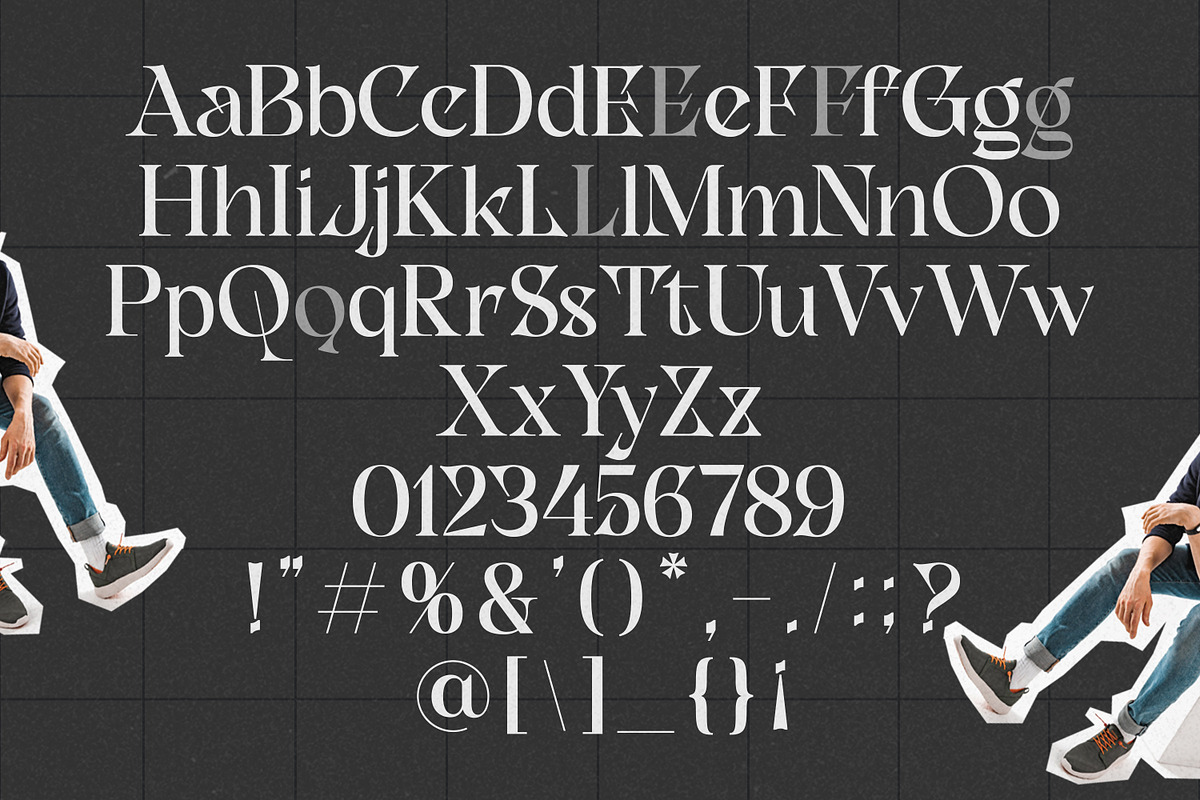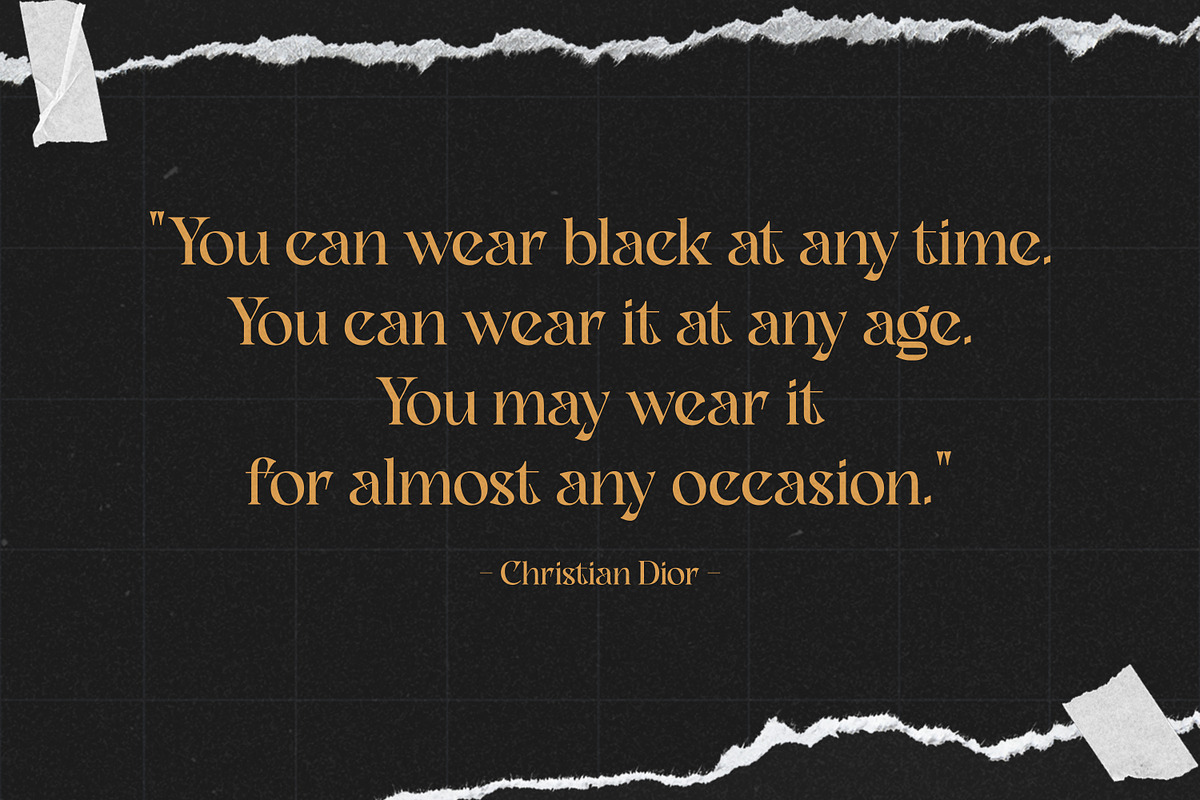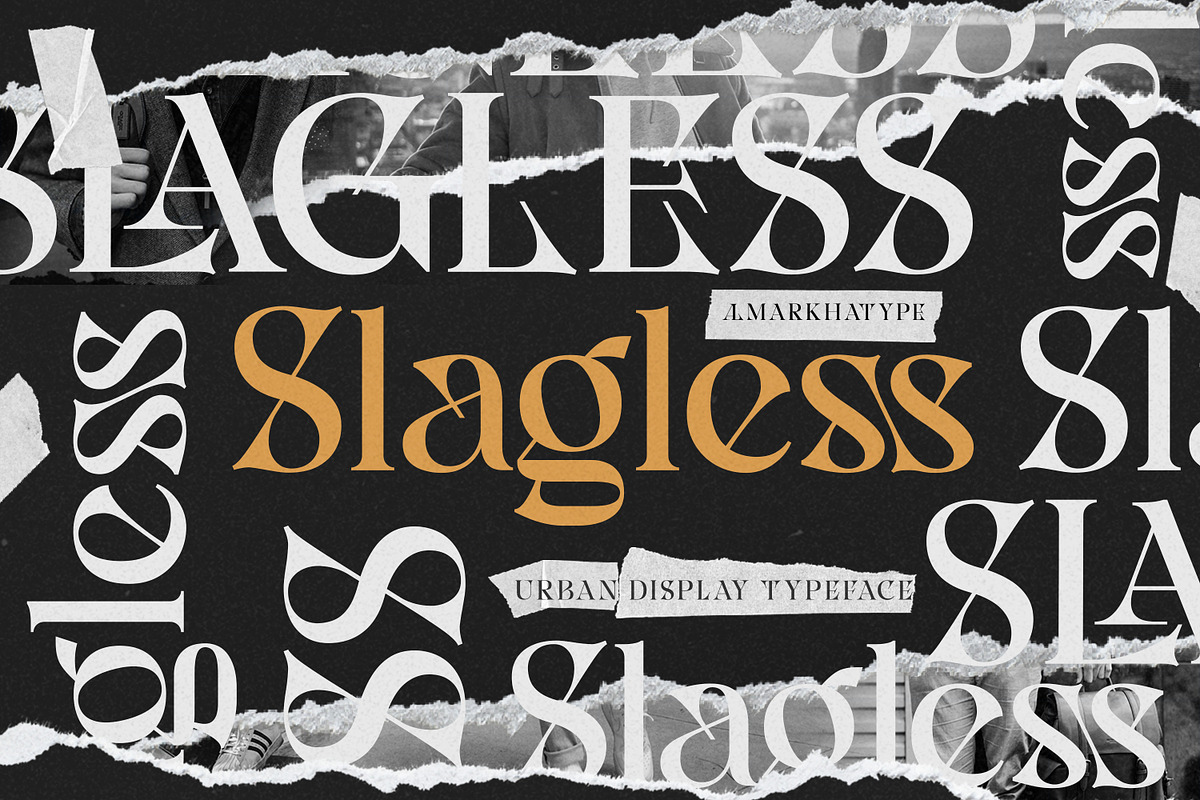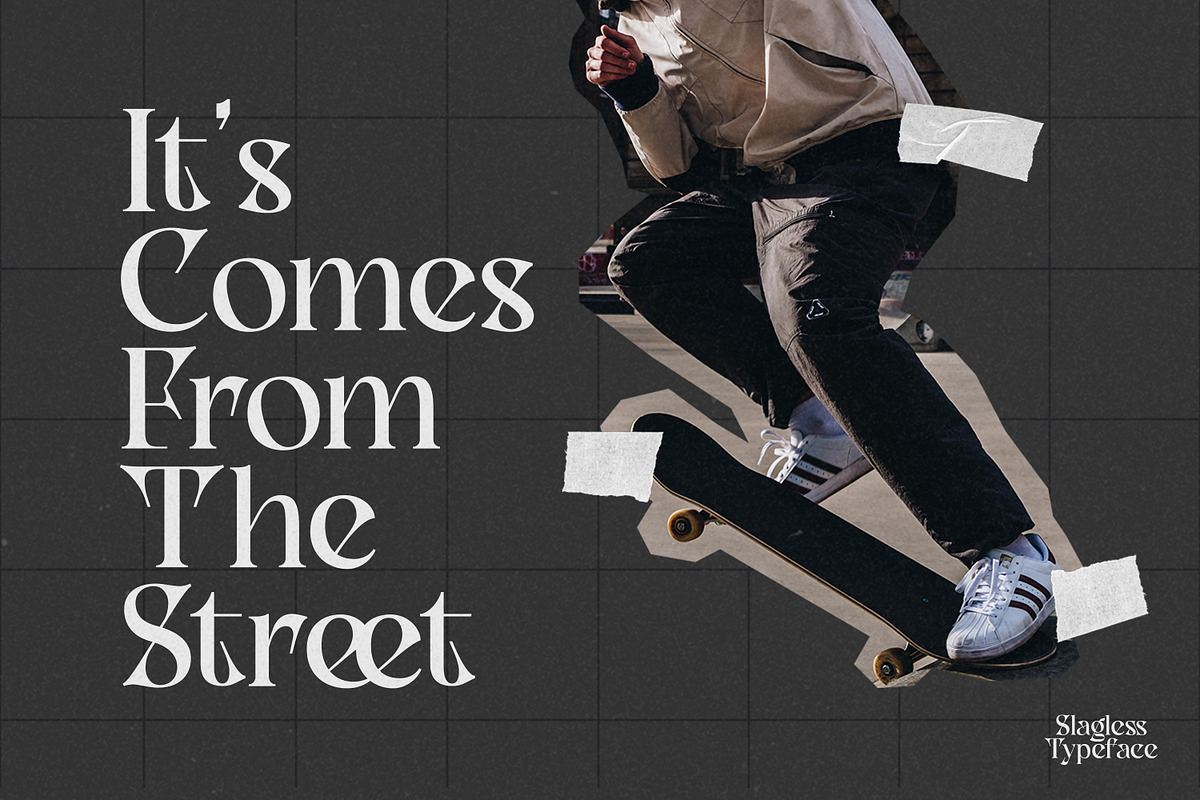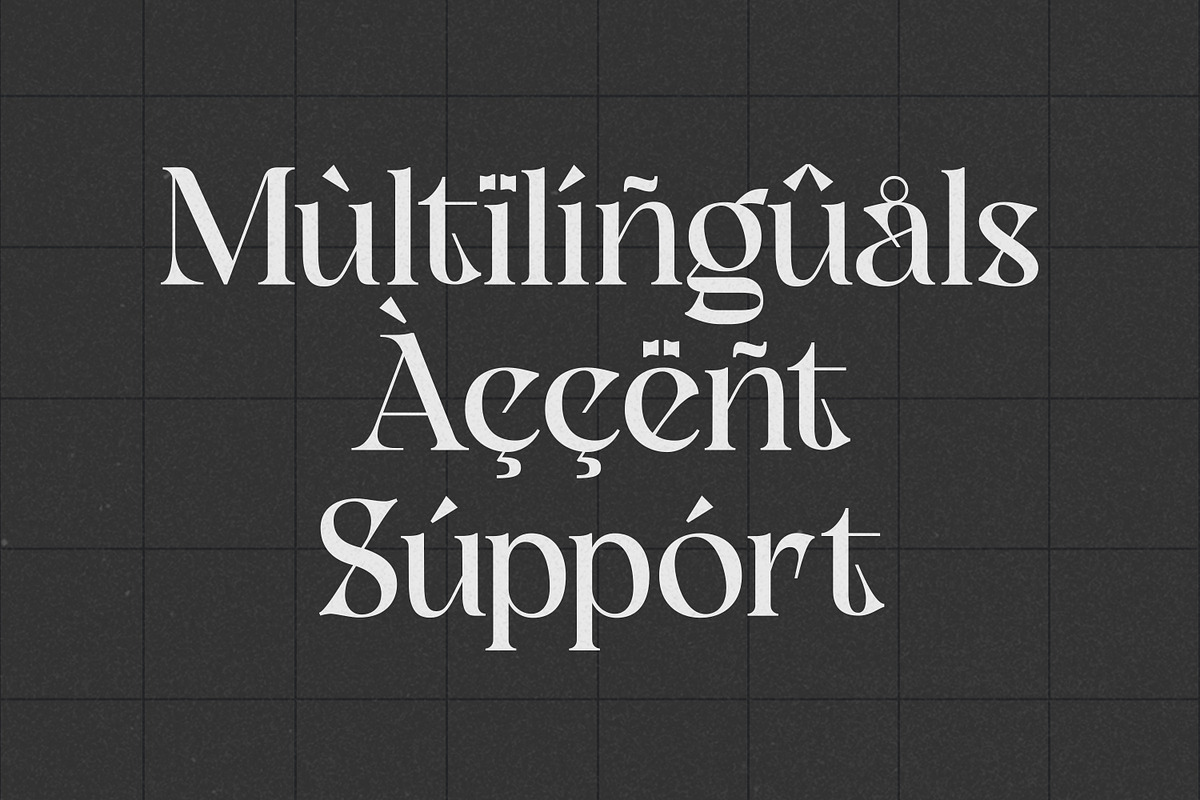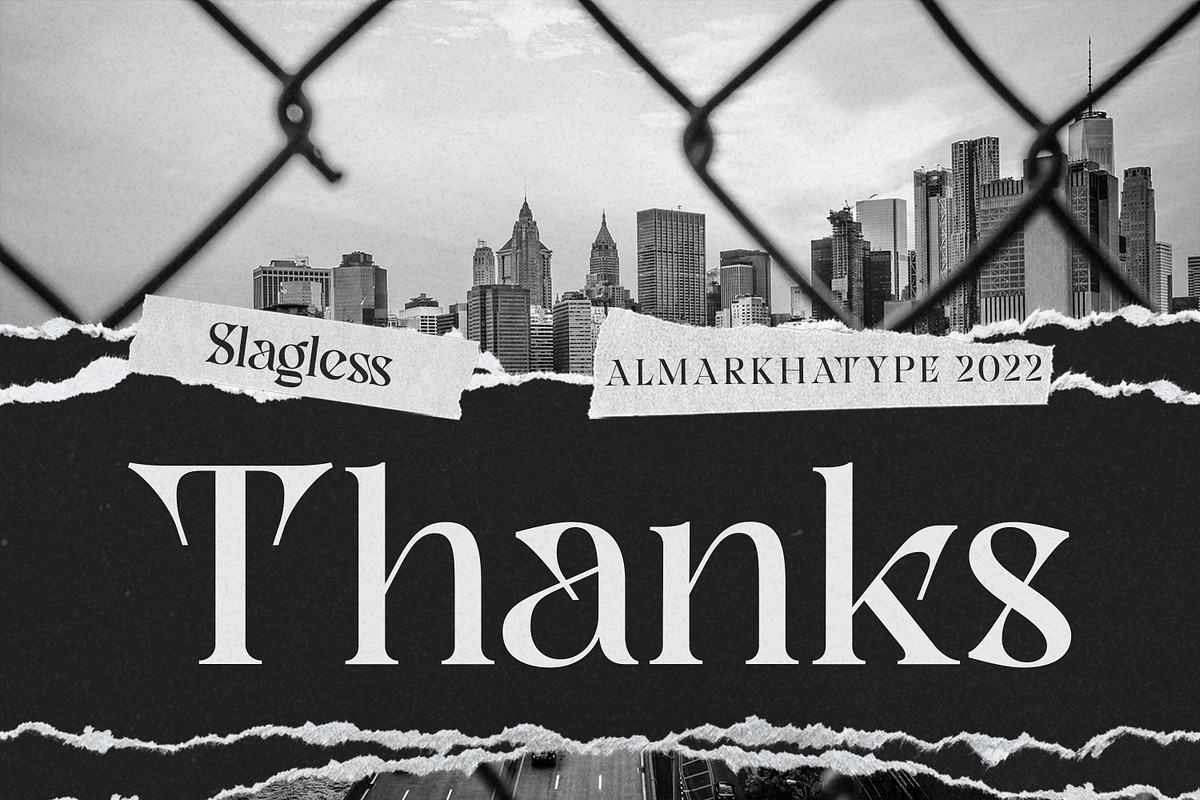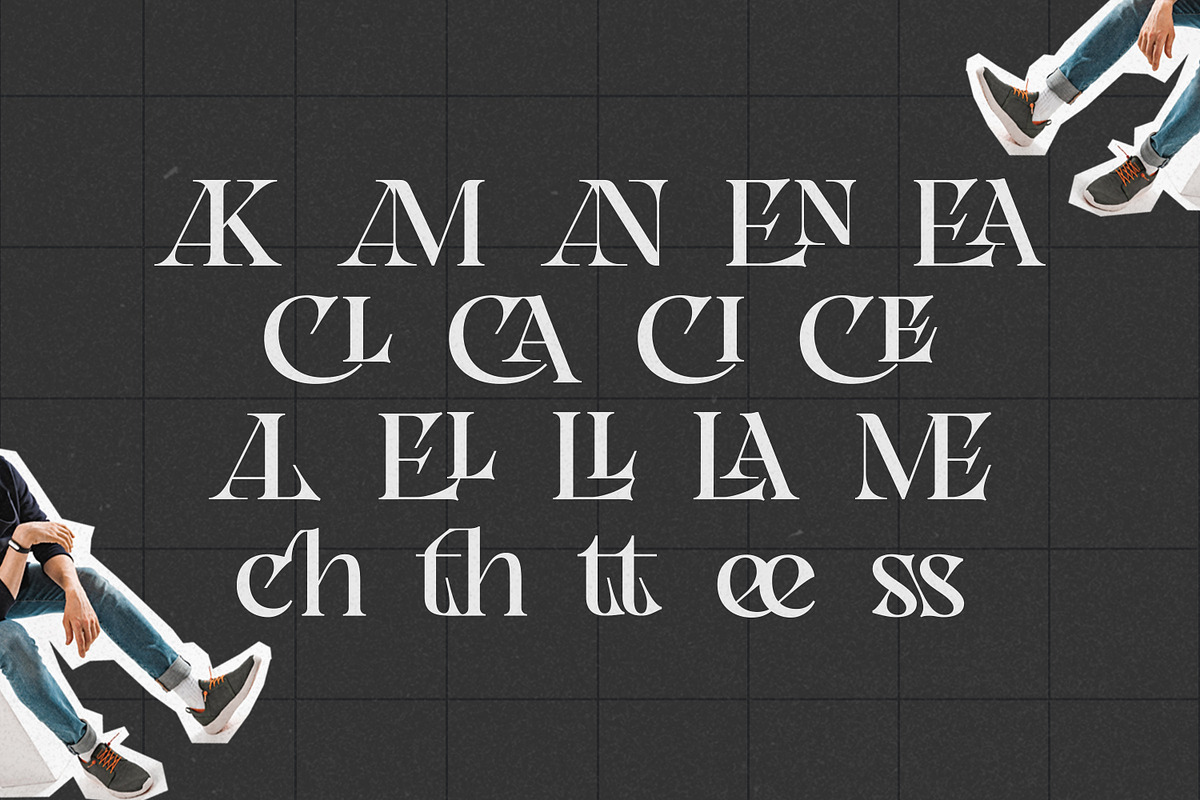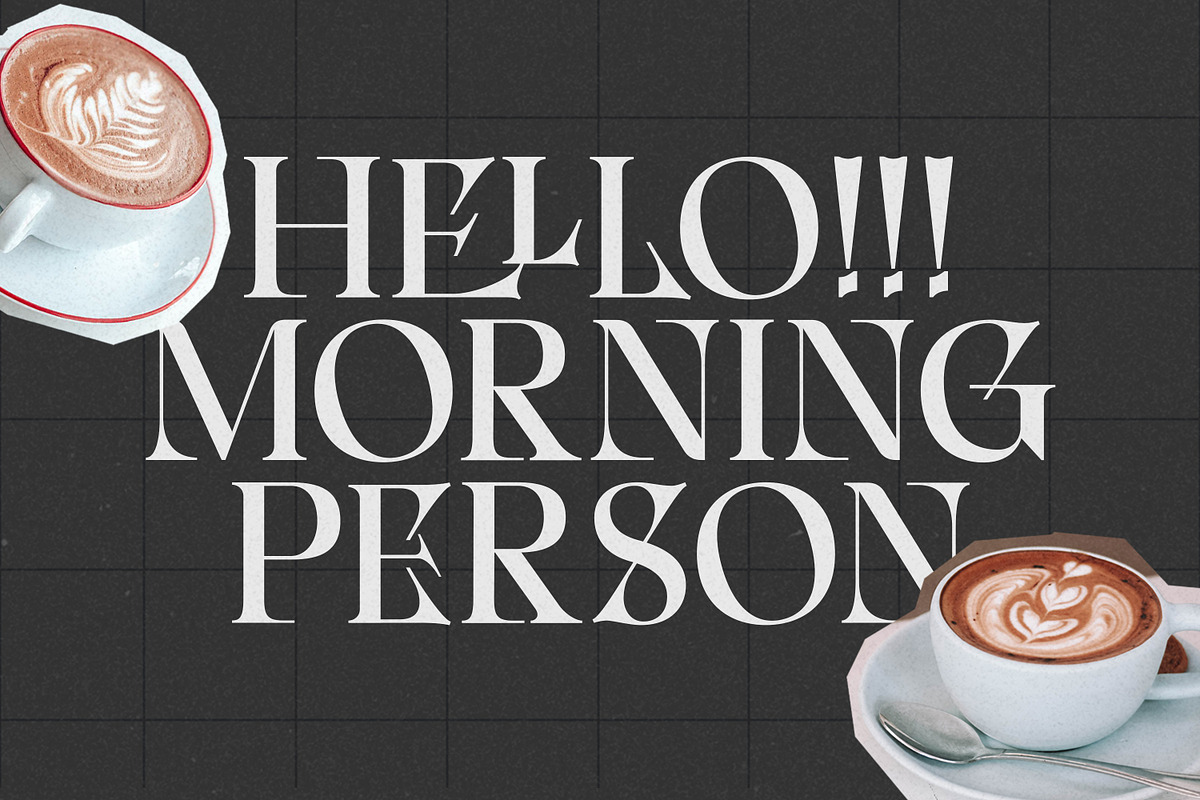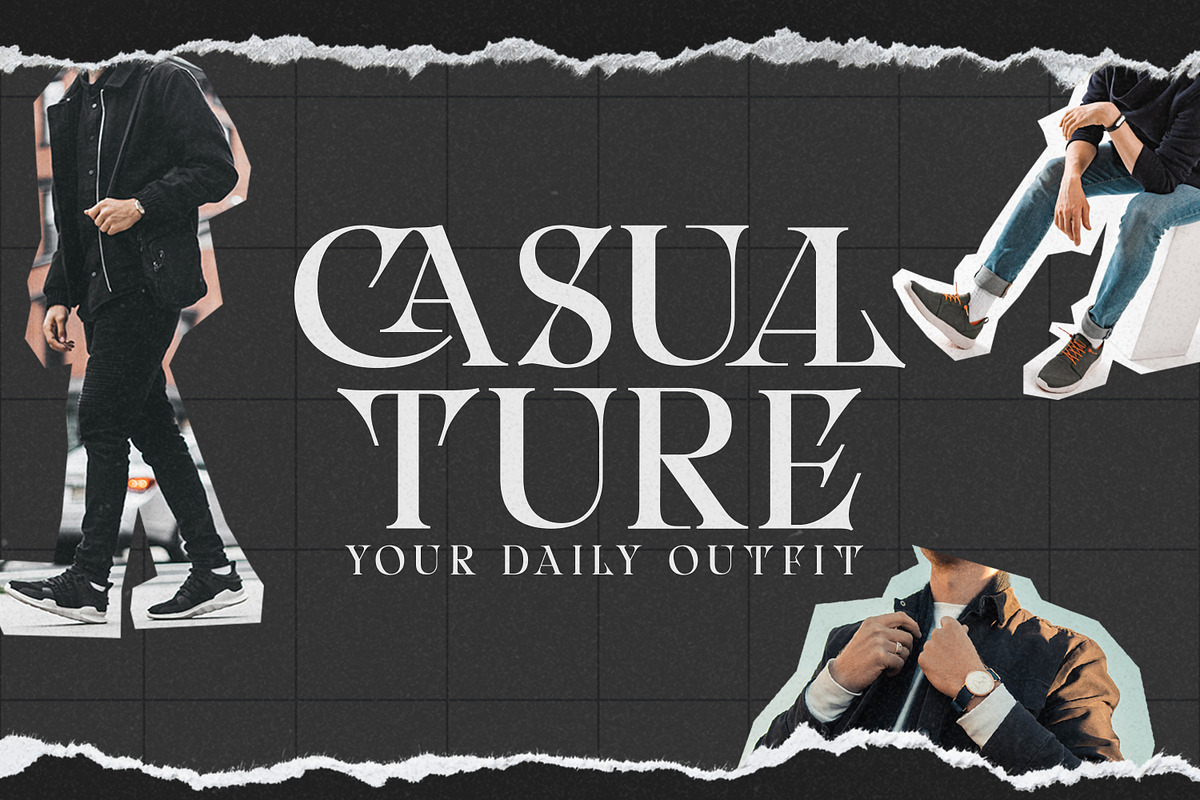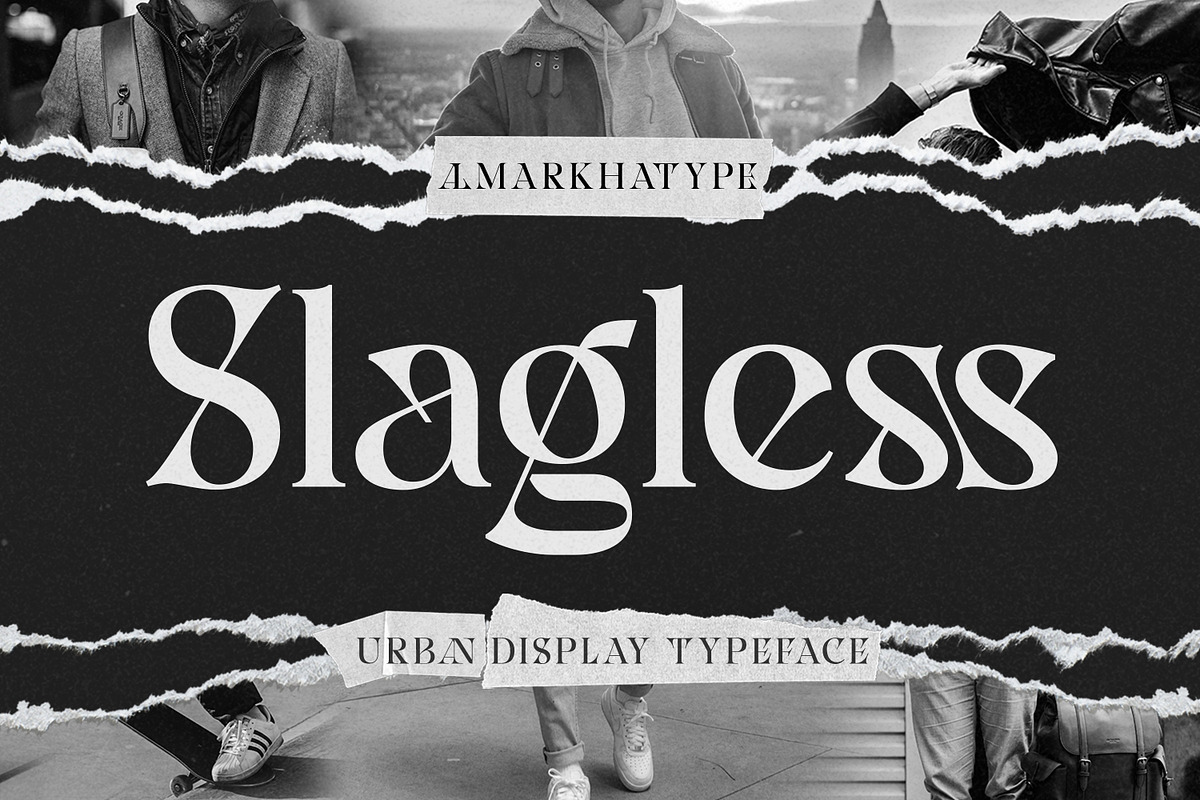
Slagless - Urban Display Serif
Hello Introducing, Slagless - Urban Display Serif is unique font that uses 19 ligatures to smoothly link letters. inspired by the famous urban logo, perfect for the purposes of designing templates, brochures, videos, advertising branding, logos and more. Perfect for adding a unique twist to word-mark logos, monograms or pull quotes.
- Alternate glyphs